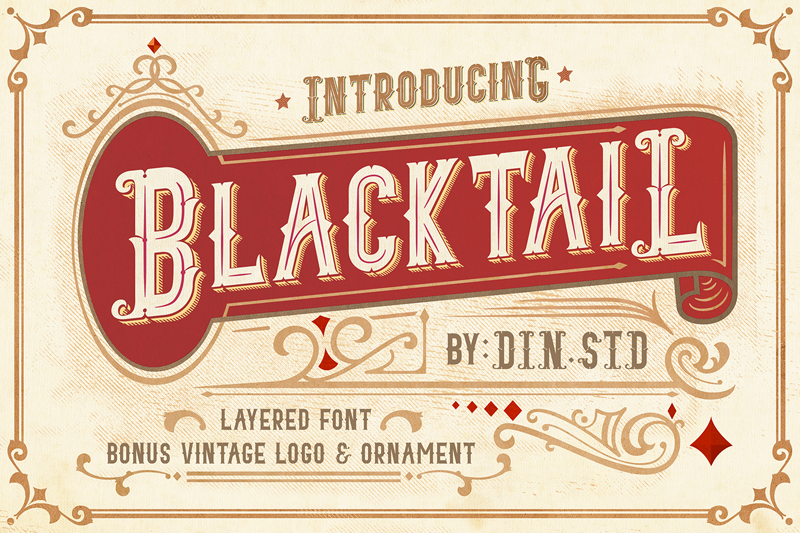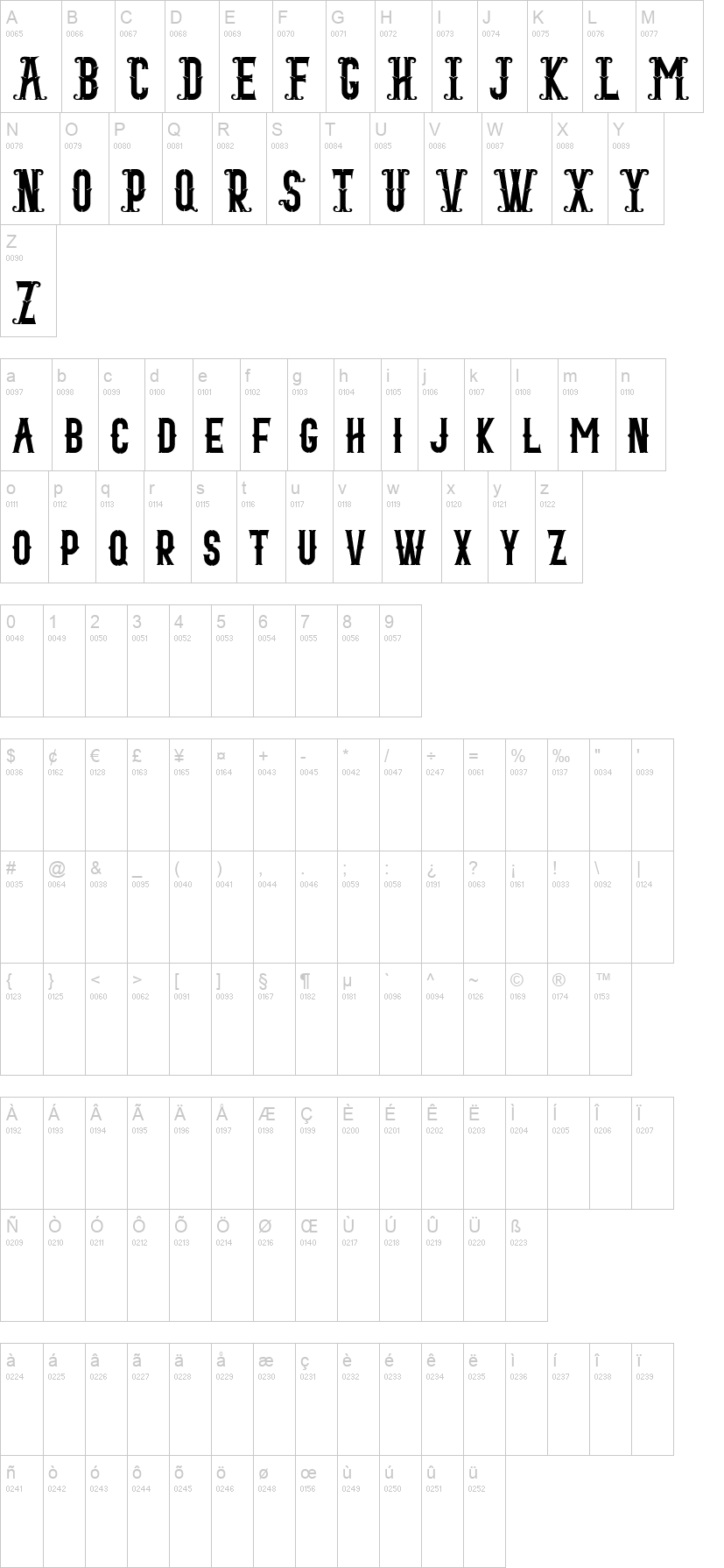
Calling out all Vintage Lovers! Here is Blacktail Vintage Font for your project design with a vintage concept. This font presents a vintage and layered style that contains four layers. It is best for a branding project, T-Shirt printing, book covers, film title and many more that need vintage vibes in it.